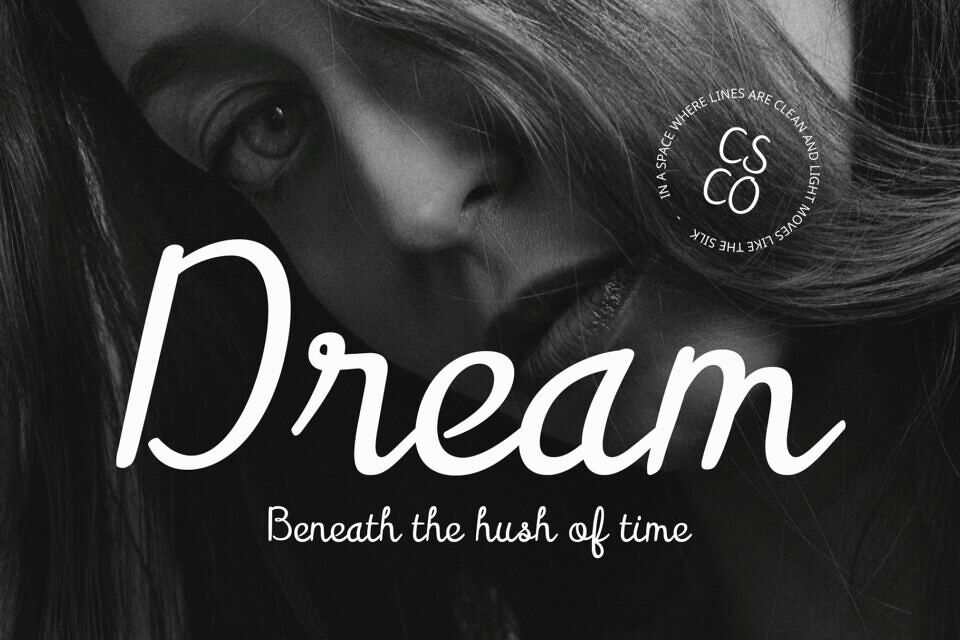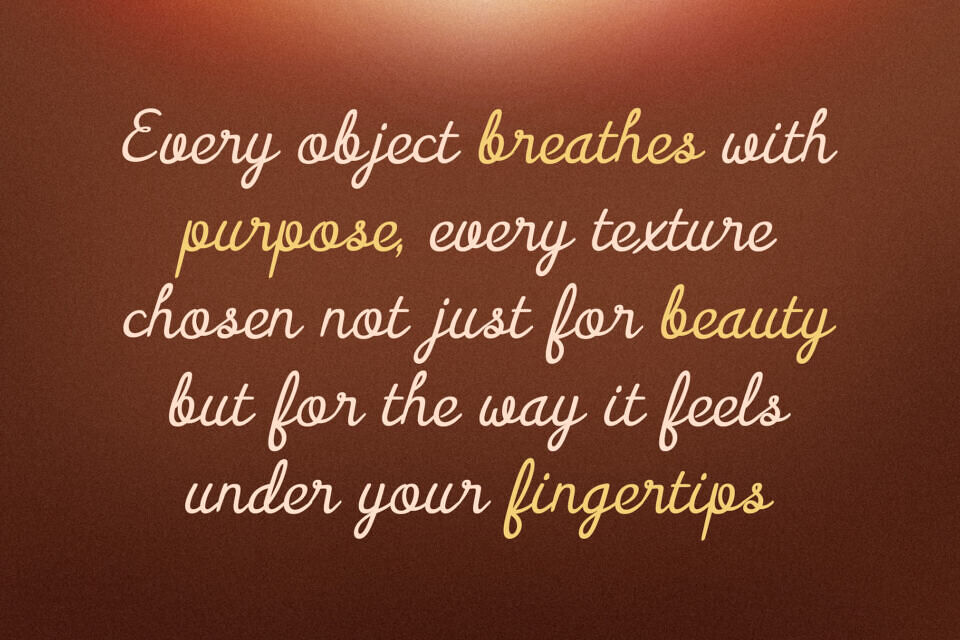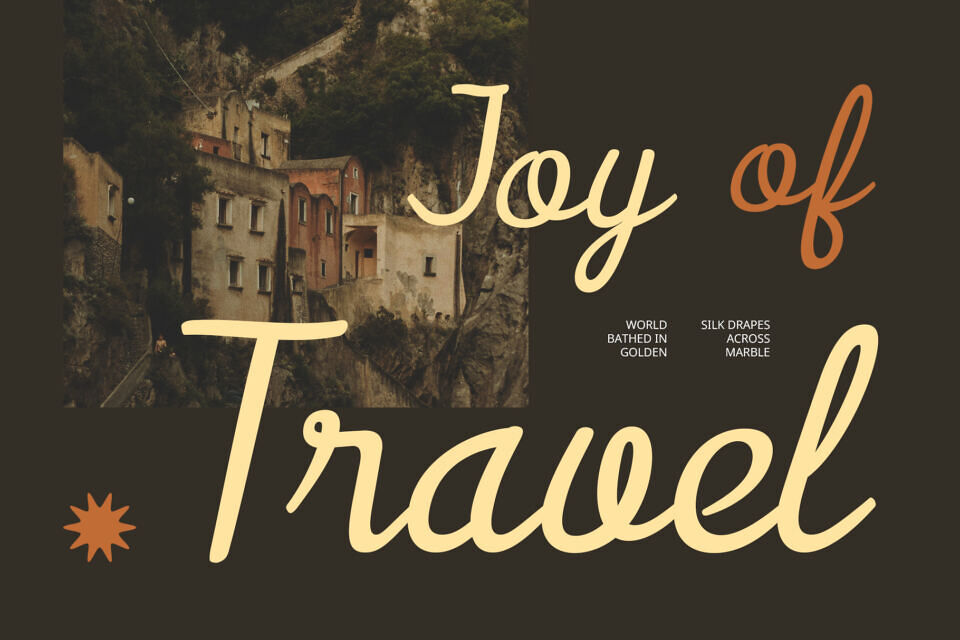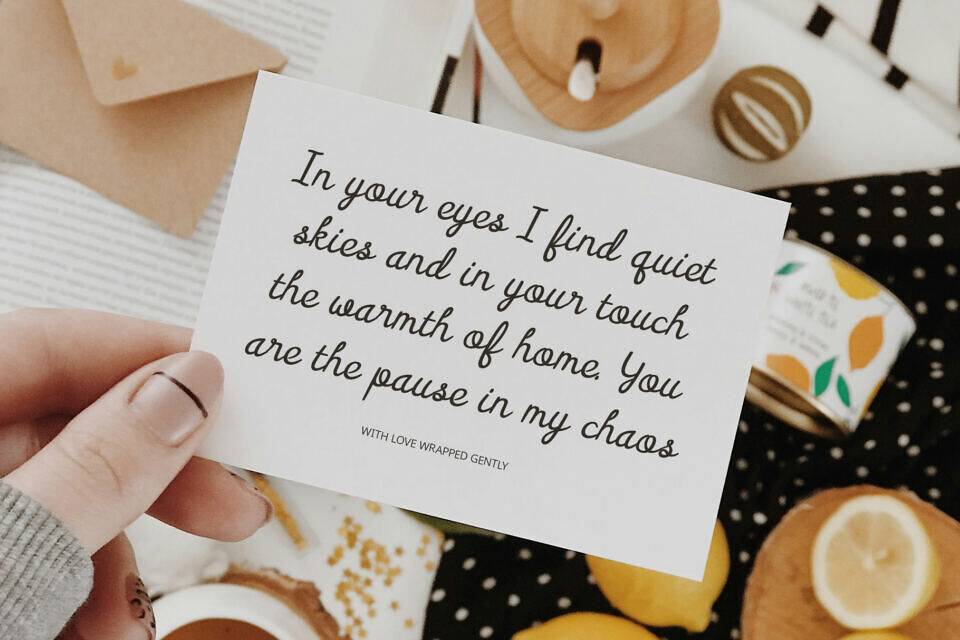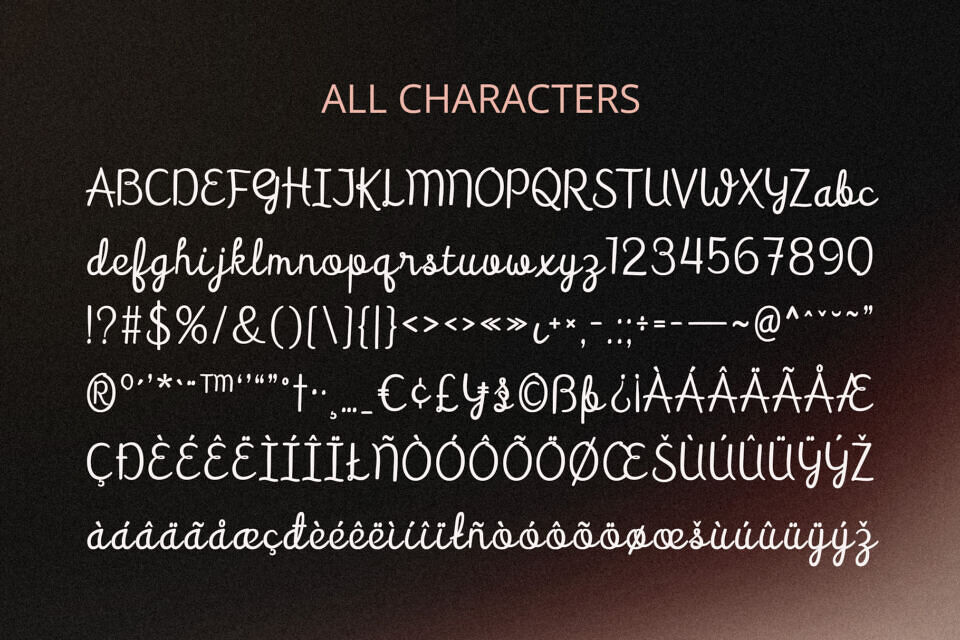
CS Hailey is a modern script font blending classic elegance with contemporary minimalism. Its smooth, flowing letters create a luxurious yet approachable feel, perfect for premium branding and elegant applications.
Ideal for wedding invitations, logos, packaging, and stationery, CS Hailey offers sophisticated readability and timeless grace.